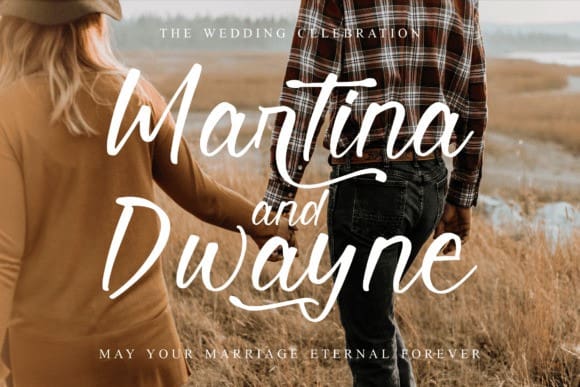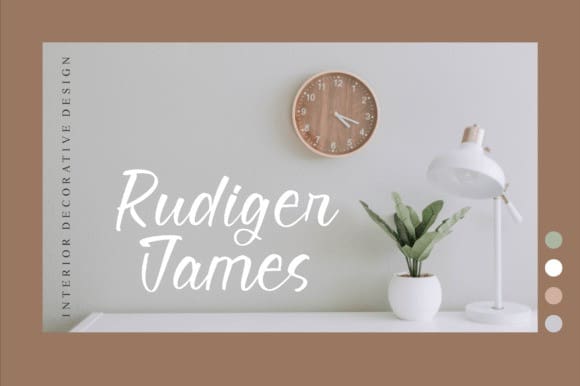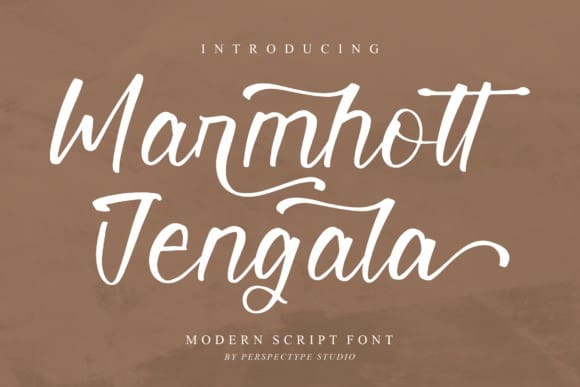
Marmhott Jengala Font
Marmhott Jengala Font is a flowing handwritten font, described by an elegant touch, perfect for your favorite projects. Fall in love with its incredibly distinct and timeless style and use it to create spectacular designs!